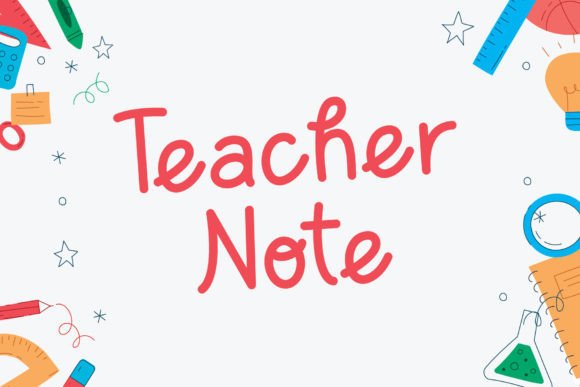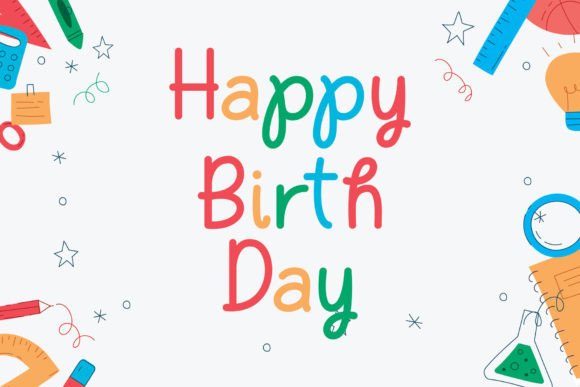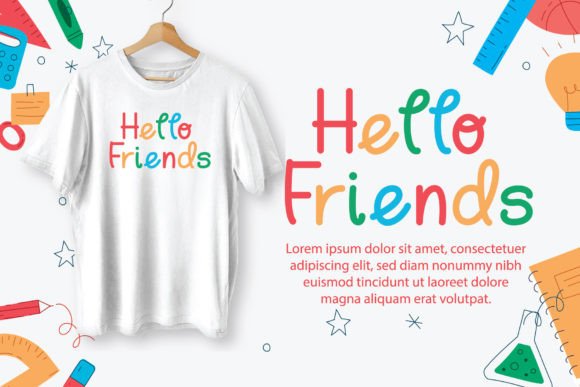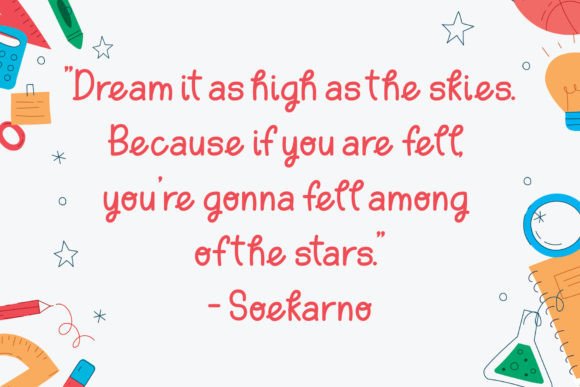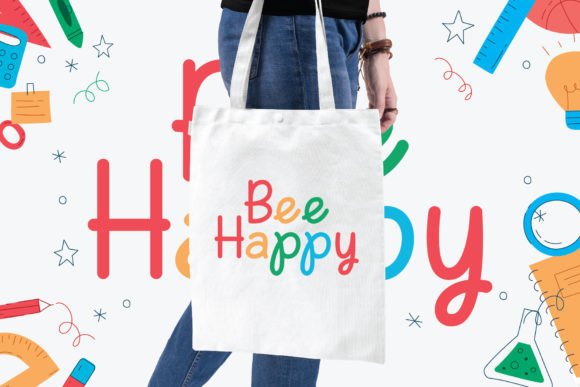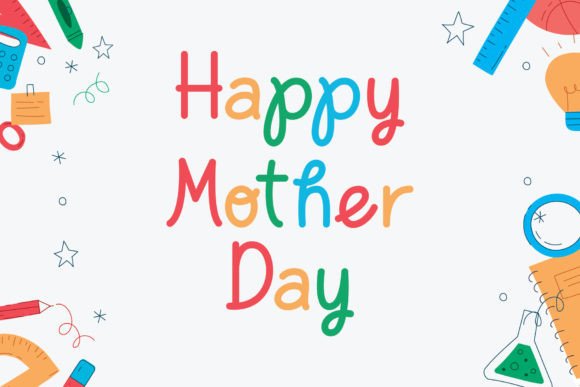
The Charm of Handwritten Notes: Unveiling the Back to School Font
Who among us hasn’t spent hours pouring over a favorite notebook, scribbling notes in the margins, and doodling in the corners? It’s a moment we all cherish, a fleeting glimpse of creativity and freedom. For designers, this nostalgic feeling is exactly what the Back to School Font embodies.
This charming script typeface is designed to evoke the essence of handwritten notes, with playful curves and a genuine charm that’s hard to resist. Perfect for projects related to education, creativity, and youthful themes, the Back to School Font is a valuable addition to any designer’s toolkit.
With its warm and inviting aesthetic, the Back to School Font is sure to bring a touch of nostalgia to any project. Whether you’re creating a school brochure, a crafty invitation, or a heartfelt letter, this font is sure to capture the essence of handwritten notes and leave a lasting impression.
Key Features of “Back to School Font”
- Font Family: The font family includes 5 unique styles: Regular, Italic, Bold, Bold Italic, and Outline.
- Unique Characteristics: Features a playful, cursive design with rounded edges and subtle texture, evoking a sense of nostalgia and warmth.
- Character Set: Includes a wide range of characters, including Latin, Cyrillic, and Greek alphabets, as well as punctuation and symbols.
Back to School Font Review
As a designer, I was excited to give the “Back to School Font” a try. Here’s my honest review:
- The font is perfect for creating a playful and fun atmosphere, making it ideal for back-to-school designs.
- The font’s design is clean and legible, making it suitable for body text and headings.
- The font supports a wide range of languages, including Latin, Cyrillic, and Greek scripts.
- The font is highly customizable, with a wide range of weights and styles available.
- The font may not be suitable for formal or professional designs, as it can come across as too playful or childish.
- The font’s design may not be as sophisticated or nuanced as other fonts in its category.
- The font may not be compatible with all operating systems or devices, due to its unique design.
I would give the “Back to School Font” 3.5 out of 5 stars. While it’s a fun and playful font that’s perfect for back-to-school designs, it may not be suitable for more formal or professional projects. With some customization and creativity, it can be a great addition to any designer’s toolkit.
Use the Back to School font to create eye-catching headlines, titles, and captions for school-related projects.
Experiment with different font sizes and colors to create visual interest and hierarchy.
Combine the Back to School font with other fonts and design elements to create a unique and engaging visual identity.
Back to School font is ideal for:
Creating school flyers, posters, and brochures.
Designing classroom decorations and display boards.
Developing educational materials, such as worksheets and handouts.
Alternatives to “Back to School Font” for Designers
Great Vibes is a modern, elegant script font that conveys a sense of optimism and friendliness. It is ideal for use in titles, headings, and short paragraphs where a playful yet sophisticated tone is desired.
Great Vibes compares to Back to School Font in its cursive and handwritten style, but it has a more refined and polished appearance. While Back to School Font is more rustic and nostalgic, Great Vibes is more contemporary and versatile.
Lobster is a bold, cursive font that adds a touch of sophistication and elegance to any design. It is suitable for use in titles, headings, and short paragraphs where a dramatic and attention-grabbing effect is desired.